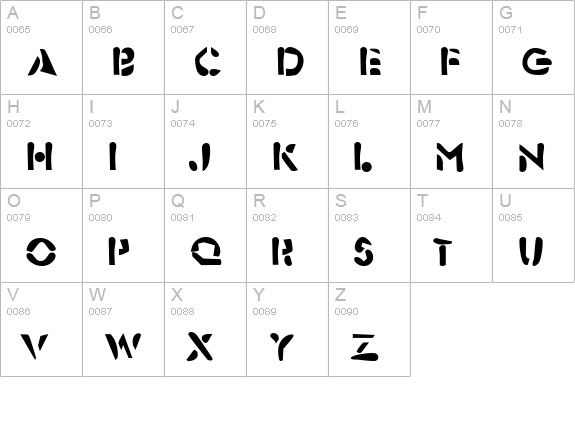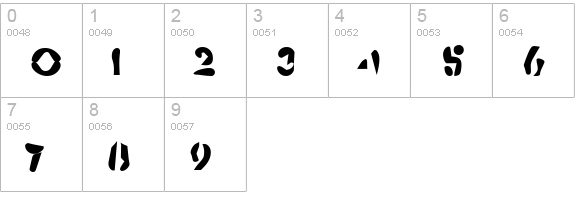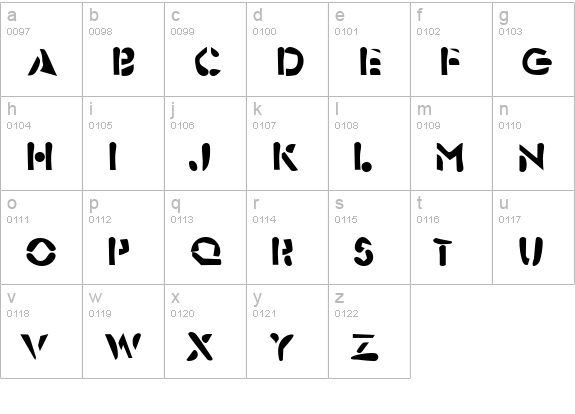
Dirty25-Bold is a strong, high-contrast variant in the Dirty25 typeface family \xE2\x80\x94 well suited to headlines, attention-grabbing titles, and strong calls-to-action.
Dirty25-Bold font is a bold and edgy typeface that exudes a gritty and urban aesthetic. With its rugged design and unique character shapes, this font is perfect for making a statement in your designs. The strong and powerful look of Dirty25-Bold font makes it ideal for headlines, posters, logos, and other graphic projects that require a bold touch. What's even better is that Dirty25-Bold font is available for free download at FontsMarket.com. So go ahead and add this striking font to your collection today and unleash its bold energy in your creative endeavors.